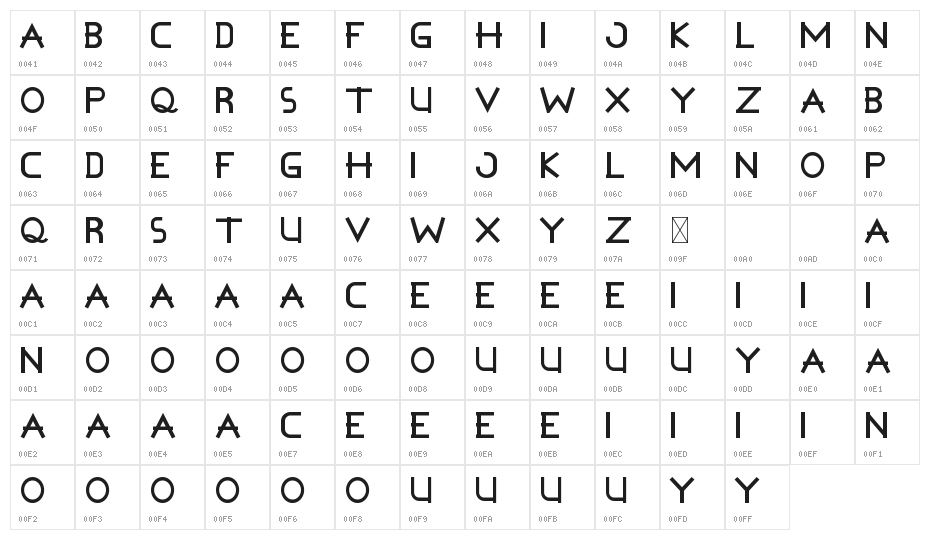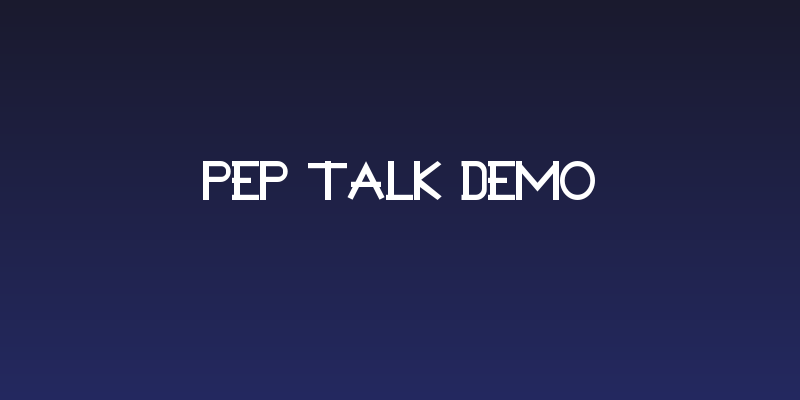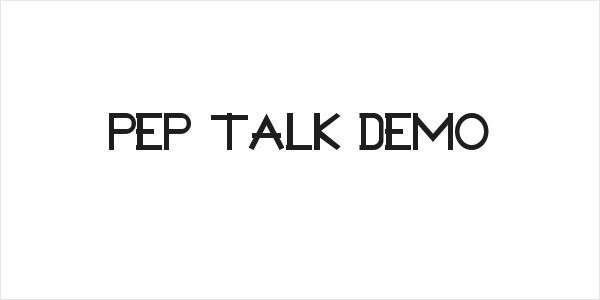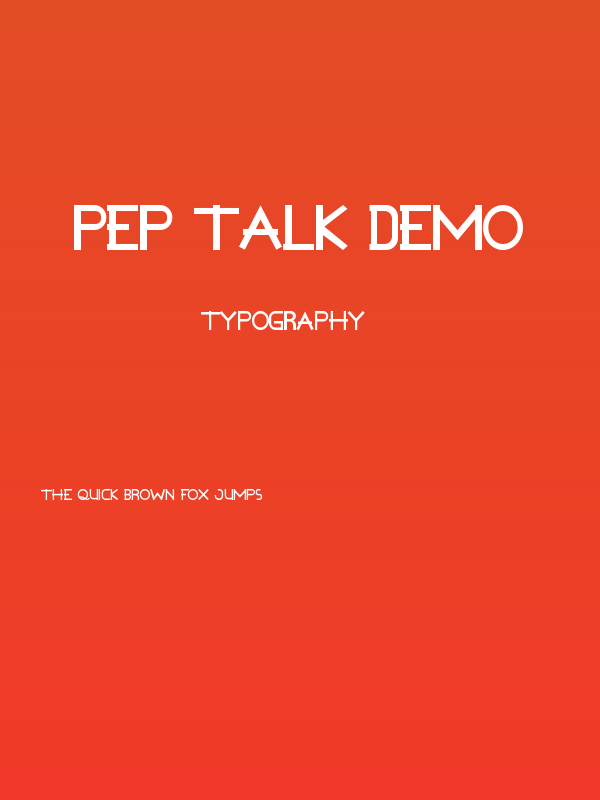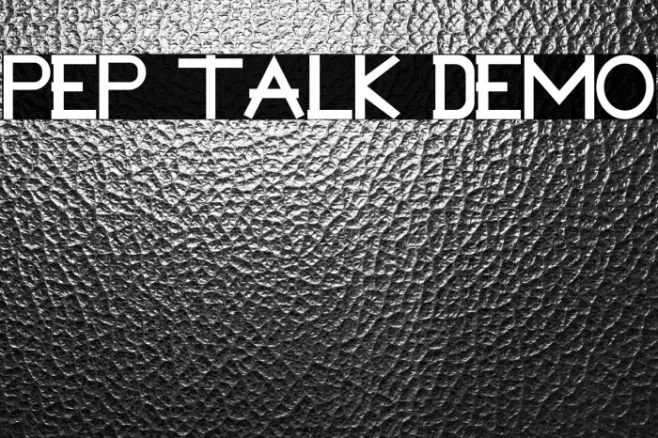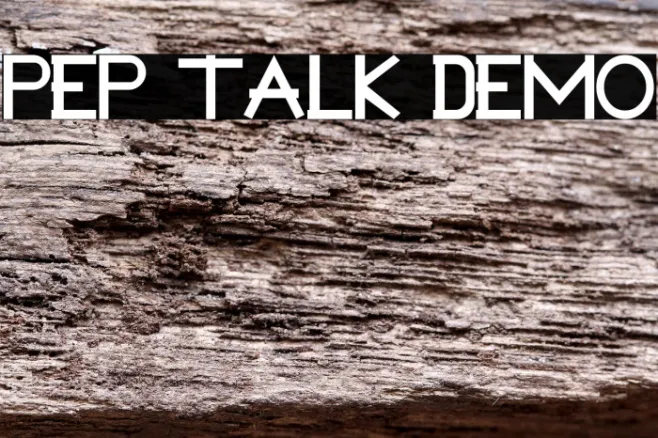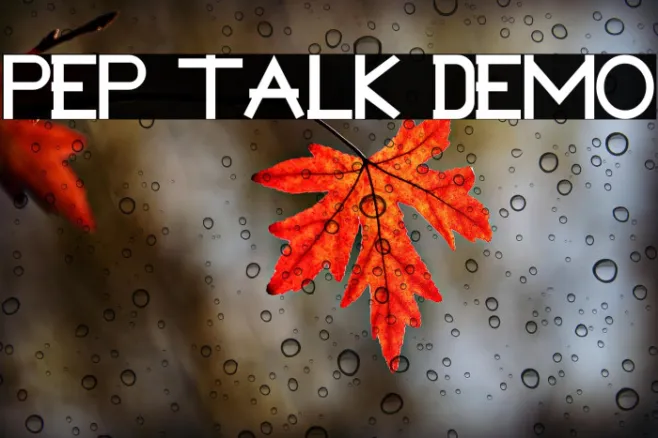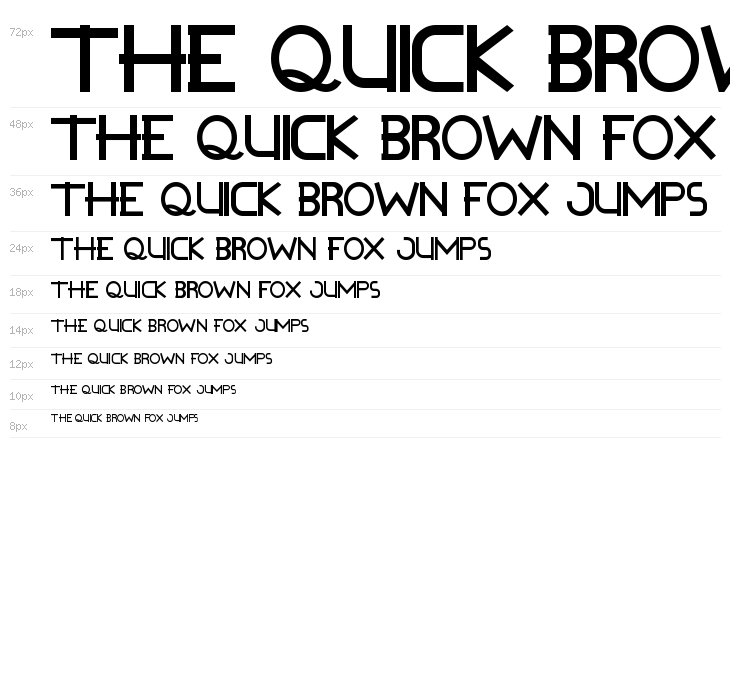
Pep Talk Demo Font
Pep Talk Demo Description
This font features a modern and geometric design with a unique blend of sharp angles and smooth curves. The uppercase letters are bold and striking, with distinctive cuts and overlaps that create a futuristic appearance. The characters are evenly spaced, providing a balanced and harmonious look. The font's style is consistent throughout, with a focus on readability and visual impact. It is ideal for projects that require a contemporary and edgy aesthetic, making it suitable for branding, advertising, and digital media.
| Proposed Projects | Branding, advertising, digital media, posters, and headlines. |